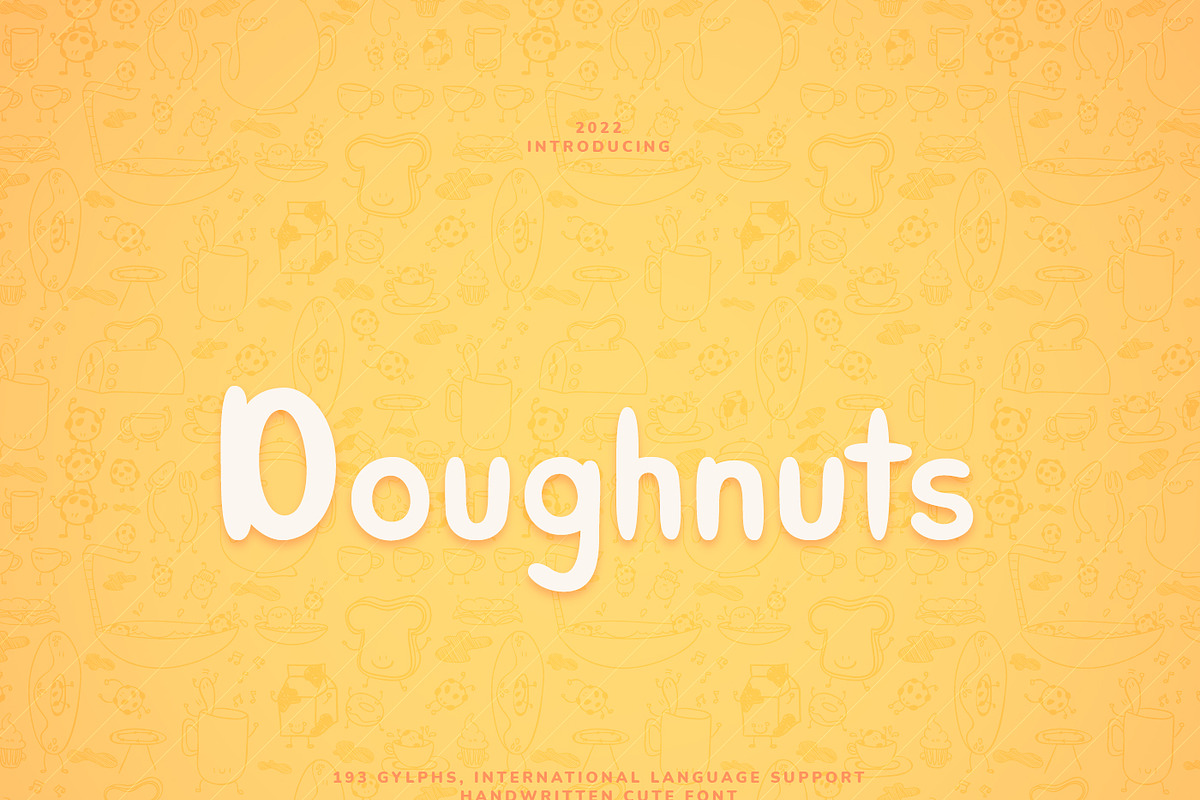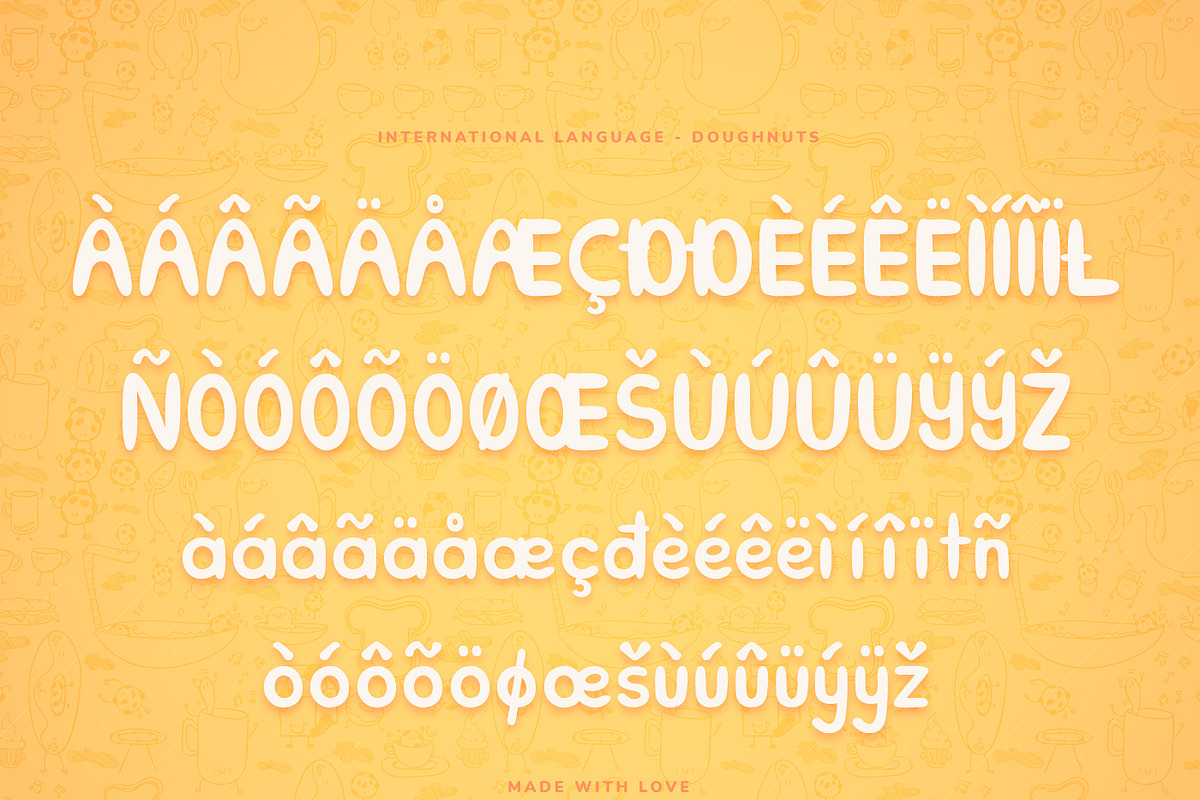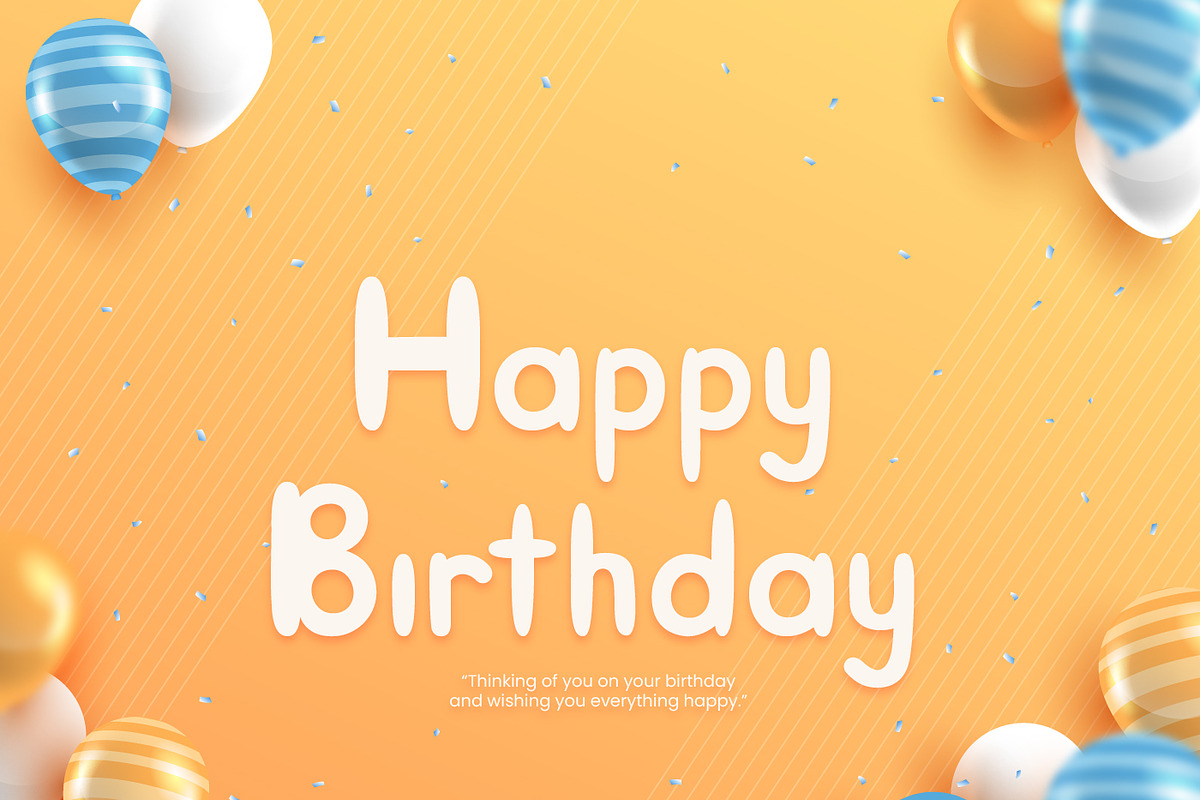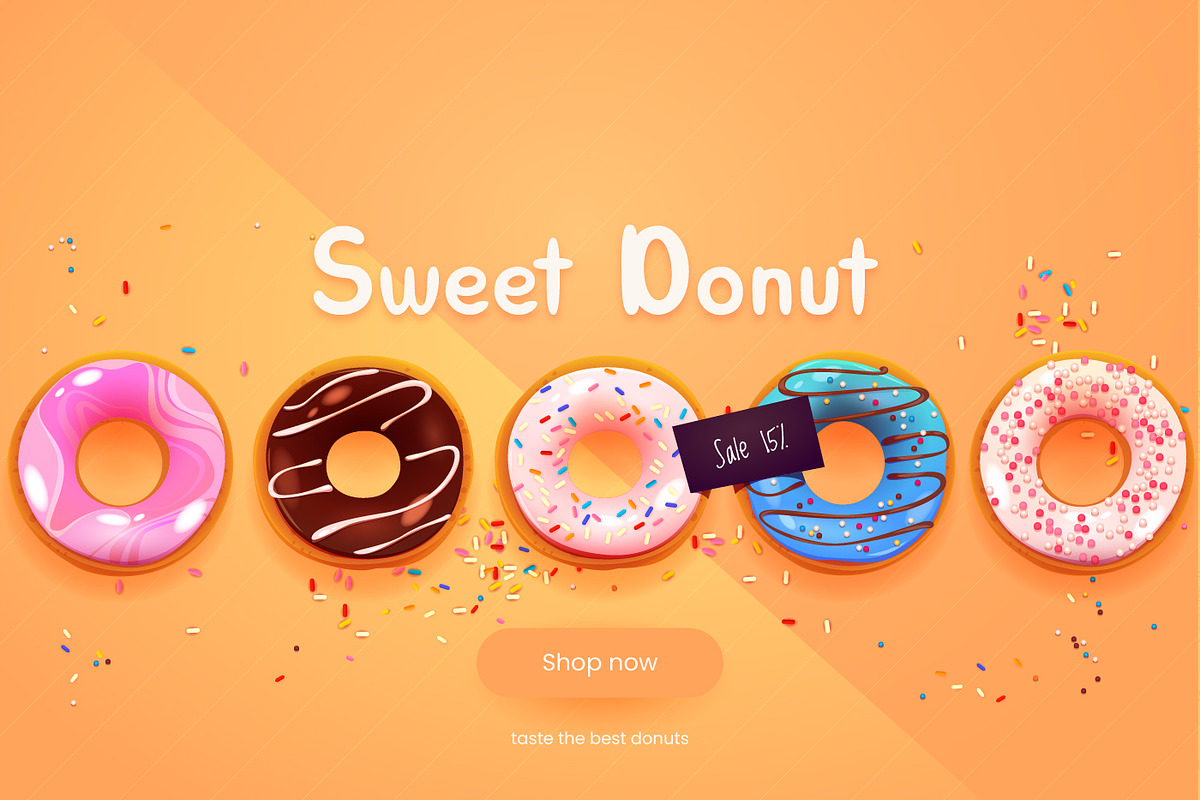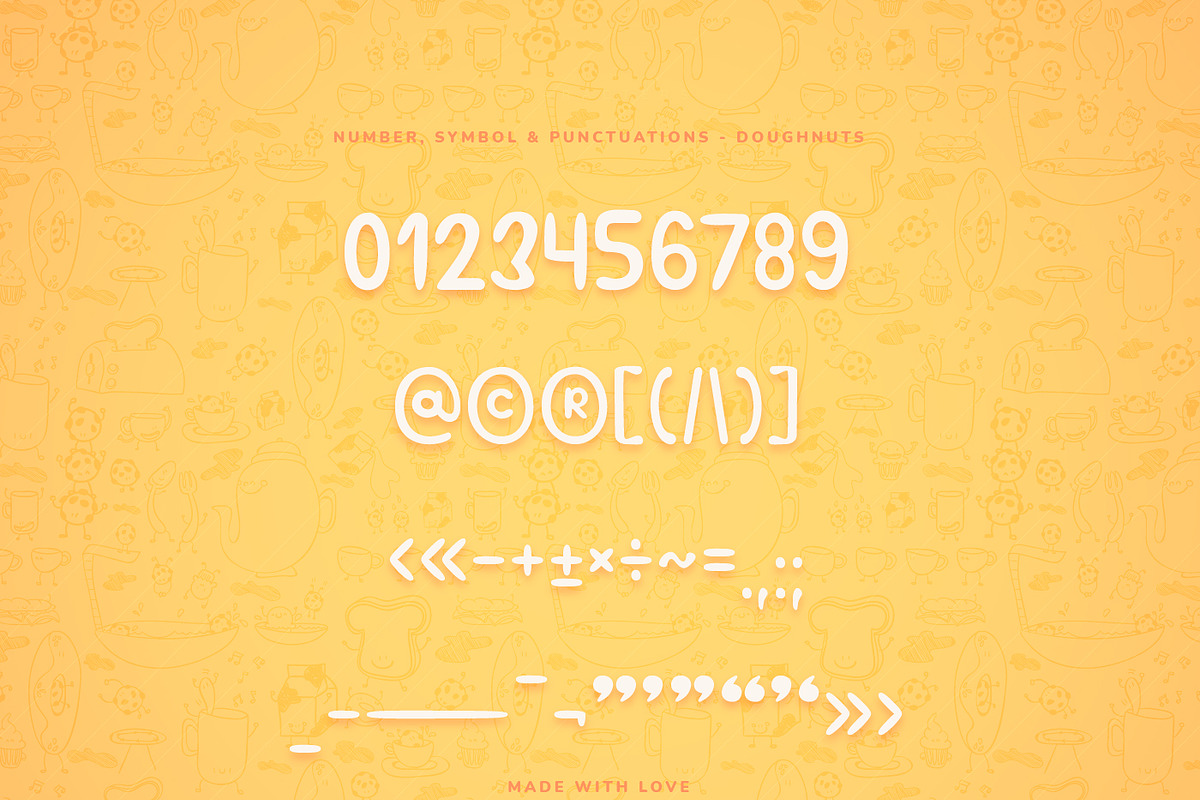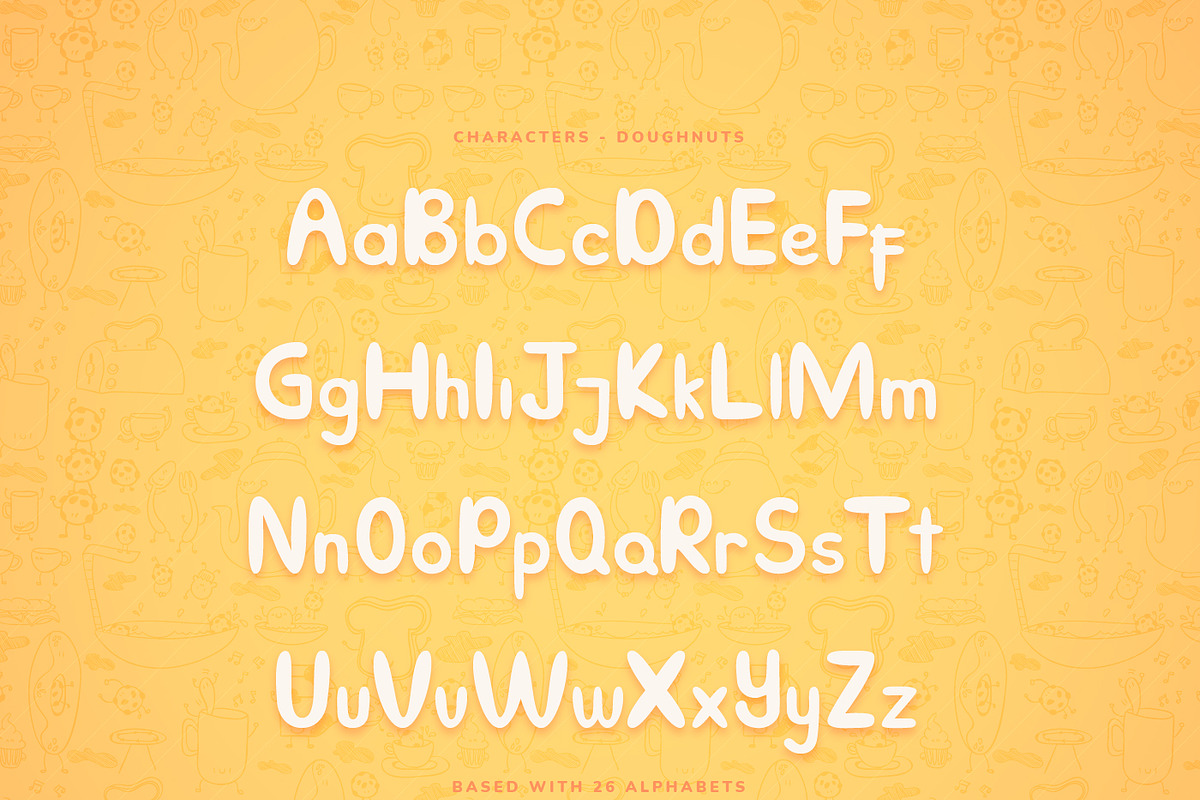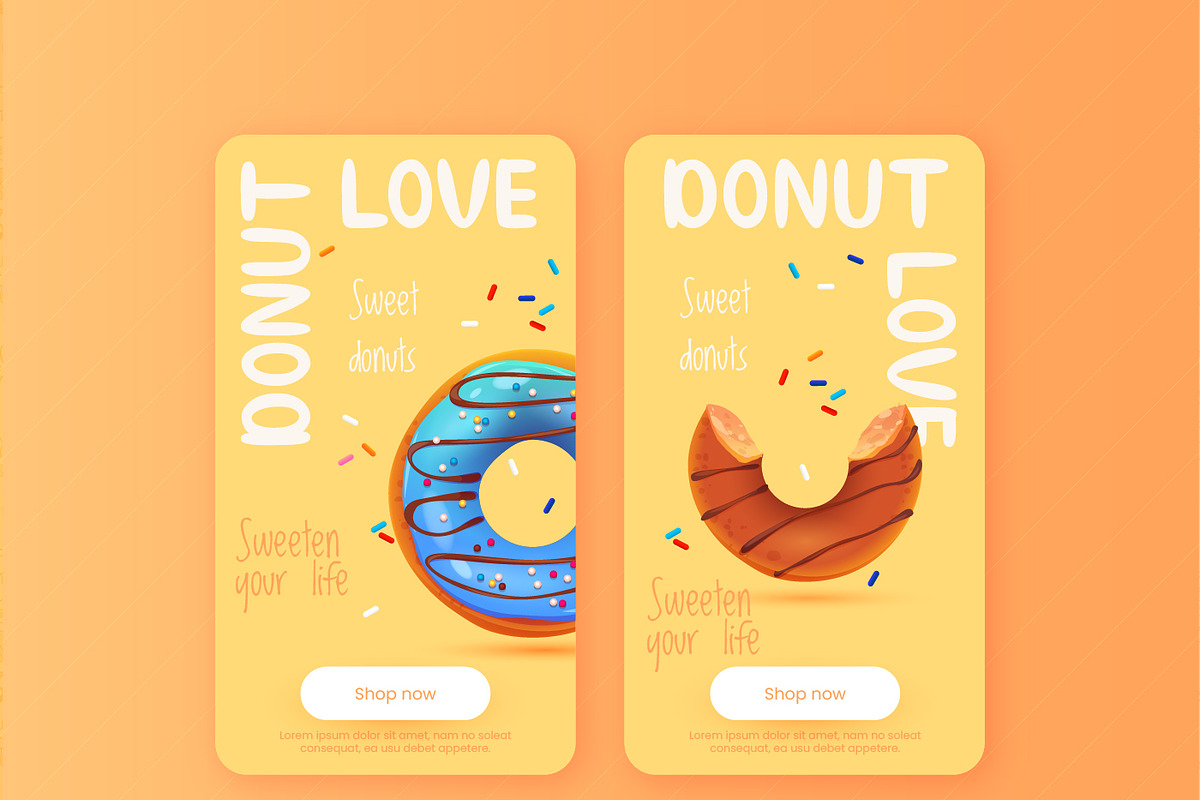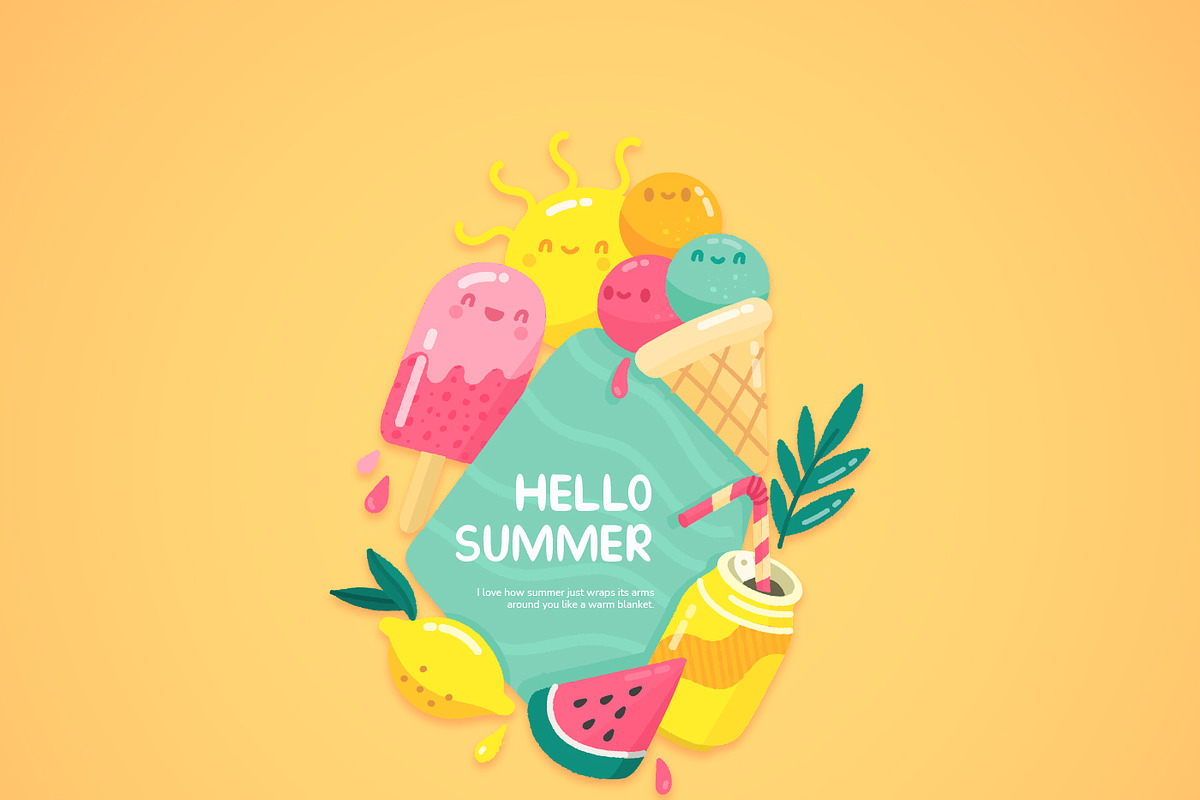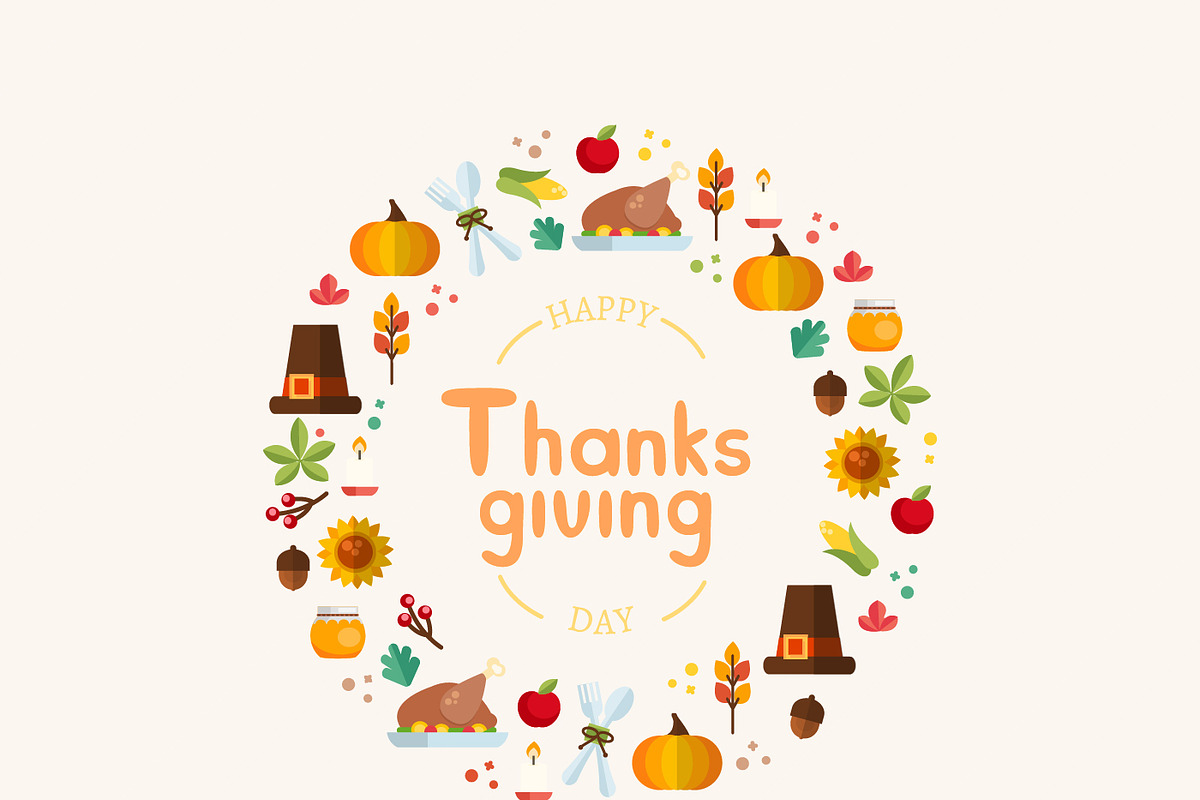
Doughnuts Cute Display Font
Made in 2022, Doughnuts Cute Display Font is the latest Modern Display Font collection. Bubbly and balloon, like a birthday party balloon and sauce strokes, "Doughnuts" is extremely cute and fancy. Inspired from balloon party and sauce strokes shapes, "Doughnuts" perfectly made for appropriating detail background, invitation, poster, thumbnail, masterheads, and more. "Doughnuts" is giving us cheerful, delighted, and fun desire. Featuring 26 alphabet and capital, symbol, and number, "Doughnuts" is useful for your design.